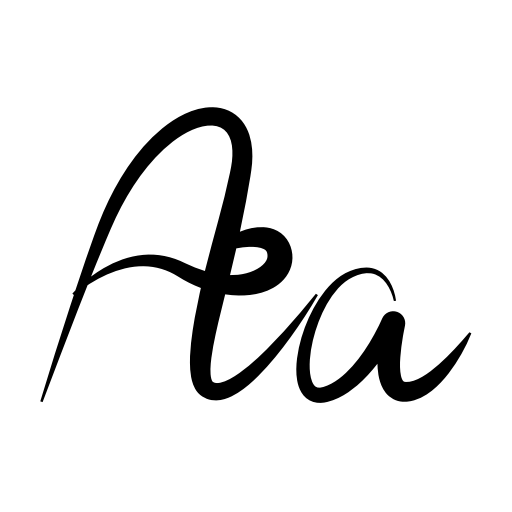
Cloudy Night is a lively handwritten script font with a casual and friendly vibe, featuring tall, slightly condensed letterforms with varied stroke widths that mimic natural brush writing. Its informal style and playful energy make it perfect for creative branding, invitations, social media graphics, and any project that seeks a personal, approachable touch. This font works best in headlines or short texts where its unique character can shine and add warmth.
Cloudy Night
About Cloudy Night